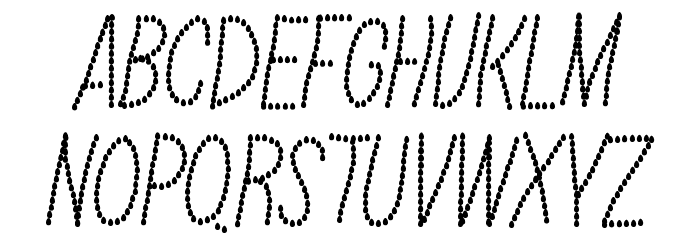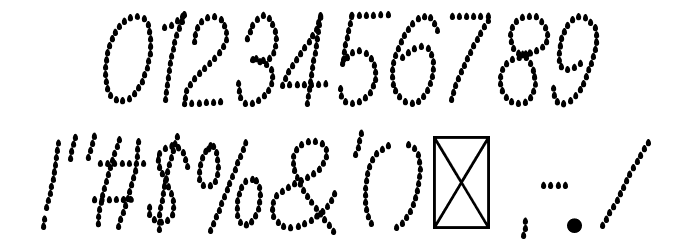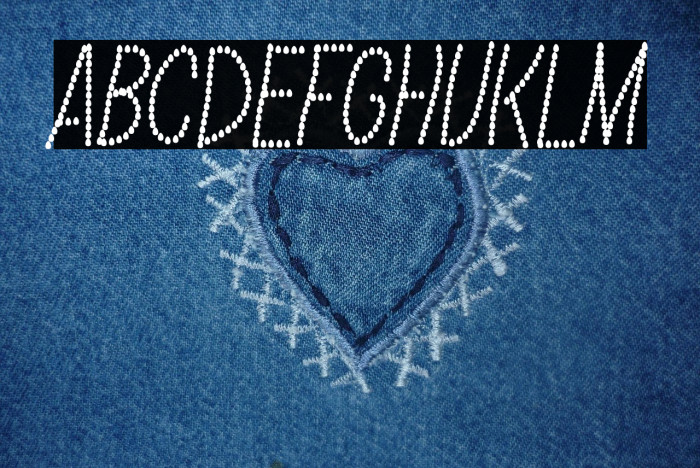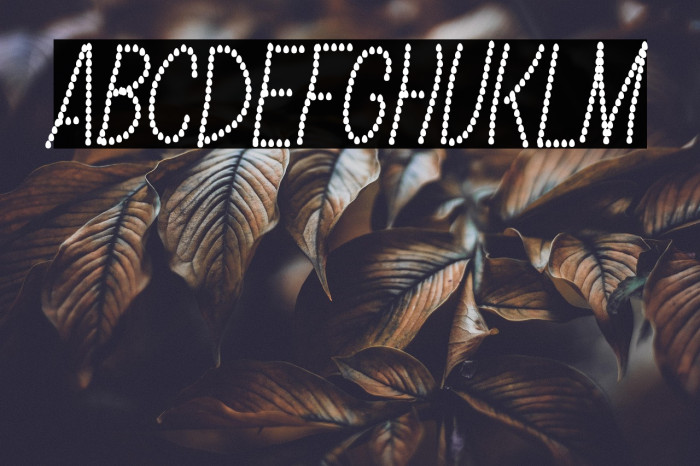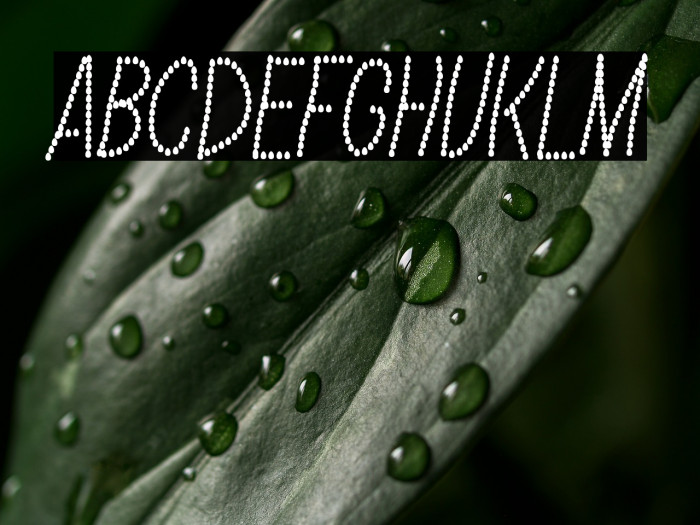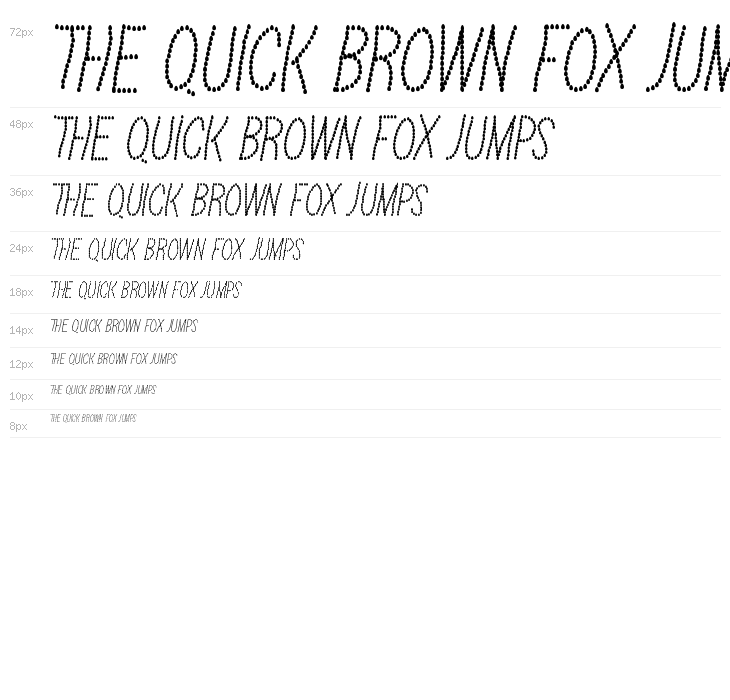
Easter Joy Font
This font features a unique dotted pattern that forms each character, giving it a playful and distinctive appearance. The uppercase and lowercase letters are crafted with a consistent dot size, creating a cohesive look across the alphabet. The numbers and special characters follow the same dotted style, ensuring uniformity throughout the font. Its design is both modern and decorative, making it suitable for creative projects. The spacing between characters is normal, allowing for easy readability despite the unconventional style. The font's overall aesthetic is lively and engaging, perfect for adding a touch of whimsy to any design.
A playful dotted font with a modern and decorative style.
- Font: Easter Joy
- Proposed Projects: Ideal for greeting cards, children's books, playful branding, and event invitations.
- Overall Style: Modern, Decorative